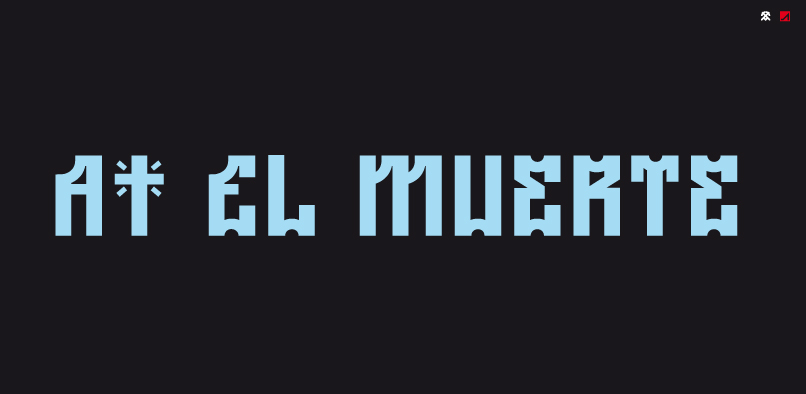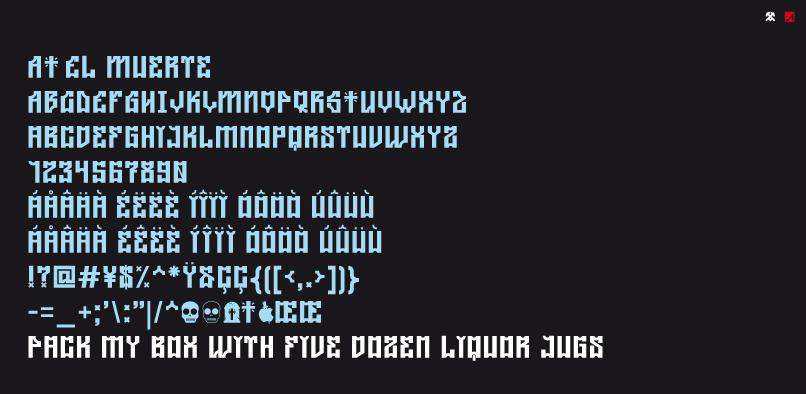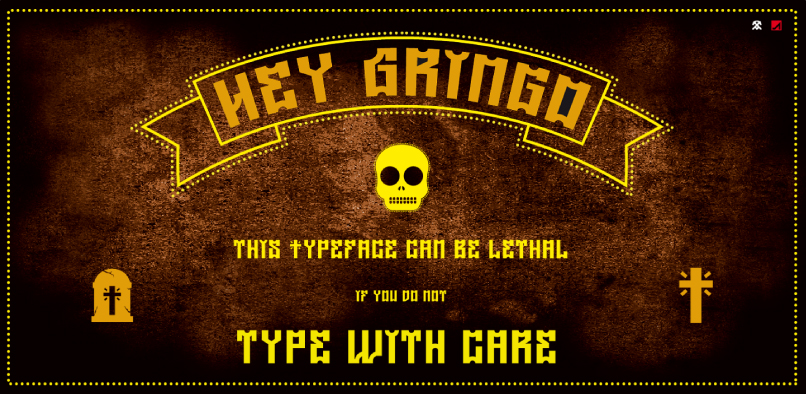
The AT El Muerte was inspired on latin-american street art scripts.hft000 atelmuertepr1 ATELMUERTE FREE FONThft000 atelmuertepr2 ATELMUERTE FREE FONThft000 atelmuertepr3 ATELMUERTE FREE FONTDownload ATElmuerte For Free